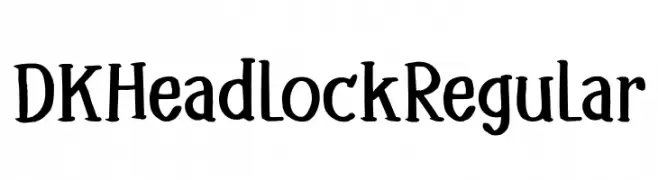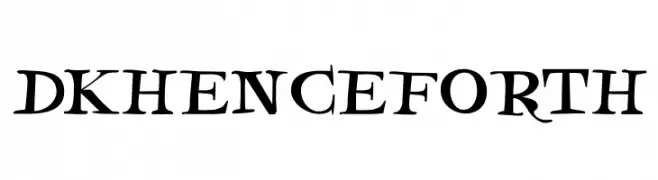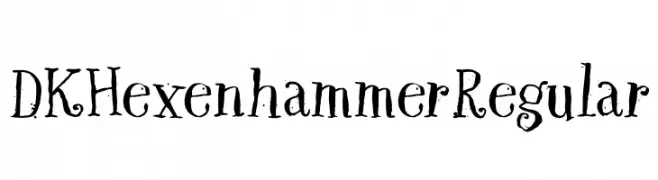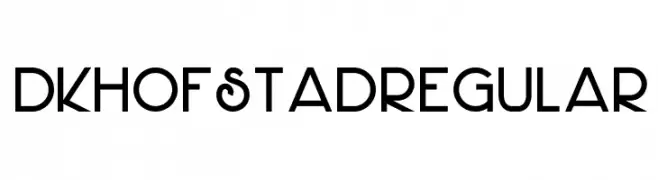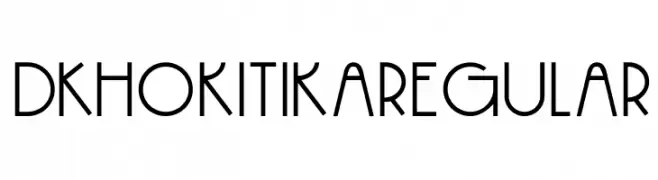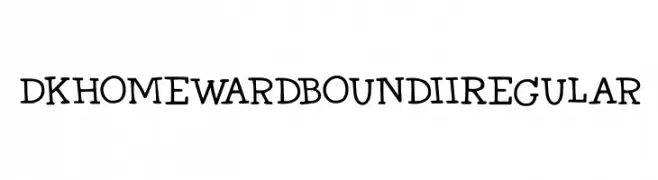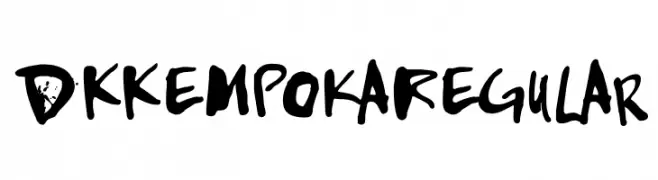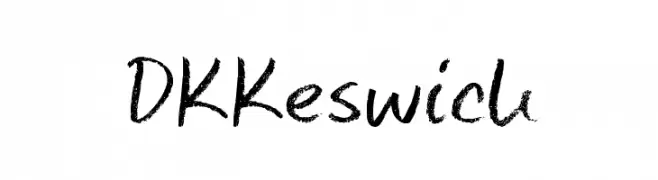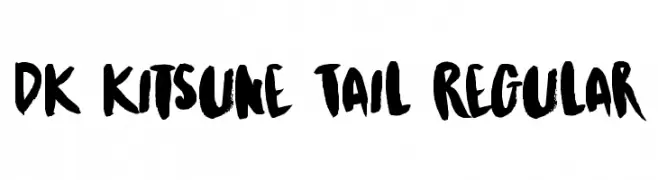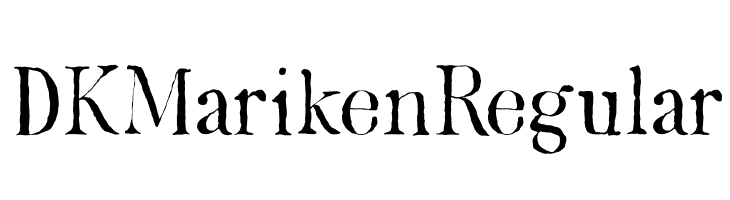
An artistic, high-contrast serif font with a calligraphic style.
A rugged, hand-drawn font with a distressed, vintage appearance.
A geometric and modern font with clean lines and angular style.
A modern, geometric font with clean lines and a sleek aesthetic.
A bold, hand-drawn font with high contrast and an expressive, artistic style.
A dynamic, brush-style font with an expressive, hand-drawn appearance.
A bold, brush script font with dynamic, hand-painted strokes.